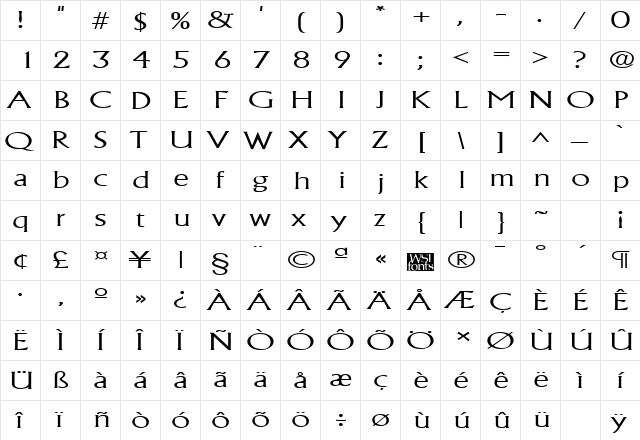
AlbertaWideExtralight Regular
Design Context for AlbertaWideExtralight Typeface
AlbertaWideExtralight is a composed and adaptable typeface that performs quietly and consistently across a wide range of design contexts. The delicate stroke weight brings airiness and refinement to layouts.